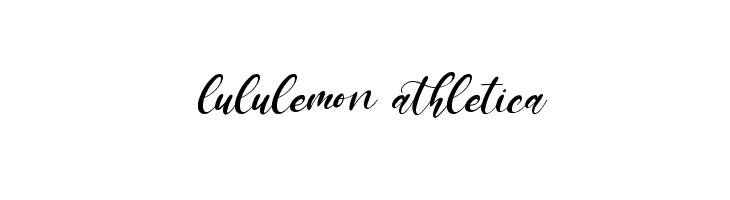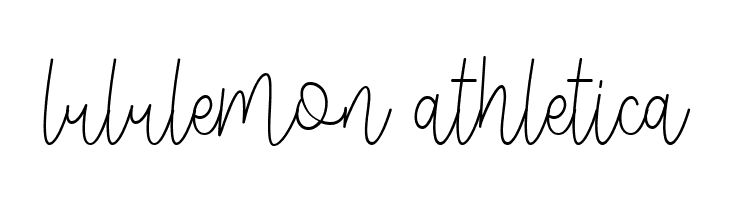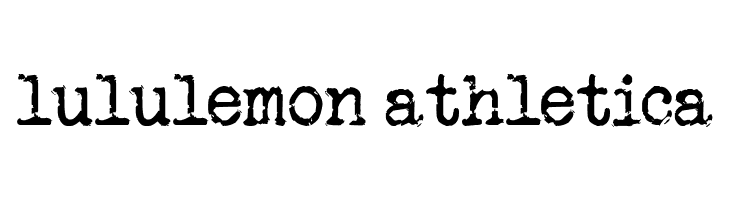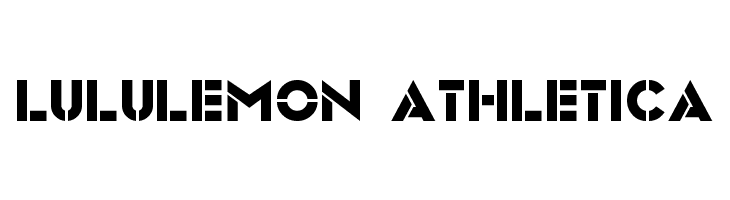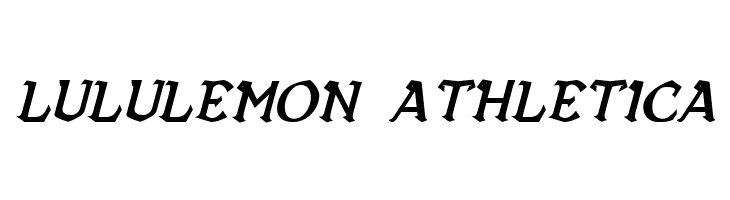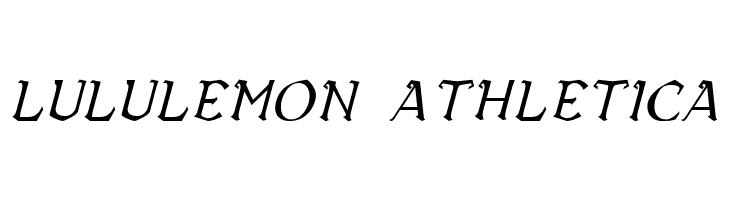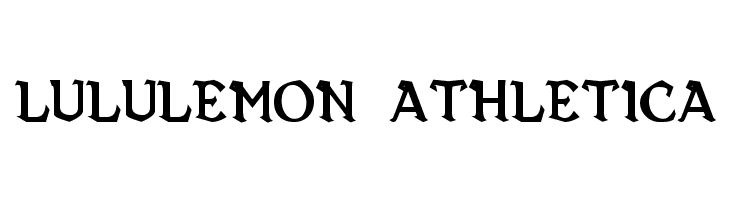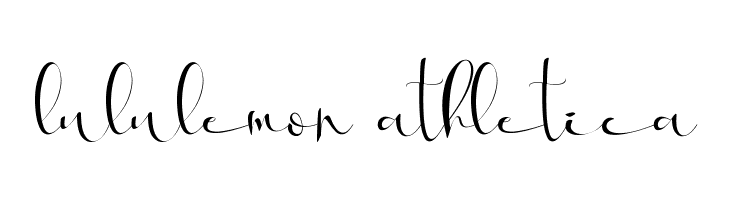
An elegant, cursive font with a sophisticated, handwritten style.
A sharp, angular font with a medieval and gothic flair.
A bold, angular serif font with a dramatic and authoritative style.
A bold, italic font with sharp serifs and dynamic letterforms.
An elegant italic font with dynamic, flowing strokes and sharp serifs.
A playful, whimsical handwritten font with flowing, interconnected letters.
A refined serif font with thin strokes and elegant serifs, offering a timeless and sophisticated look.
A distressed, vintage typewriter-style font with a rugged and nostalgic appearance.
An elegant script font with flowing lines and intricate swashes.
A bold, geometric font with angular shapes and strong visual impact.